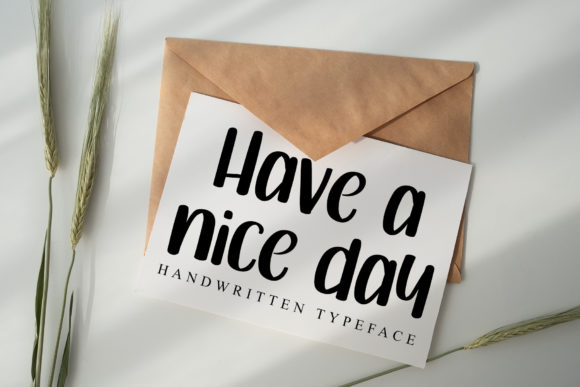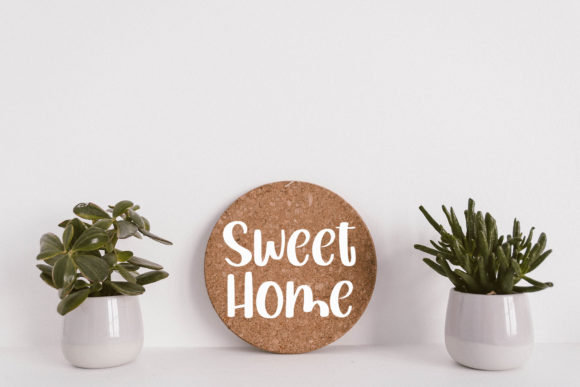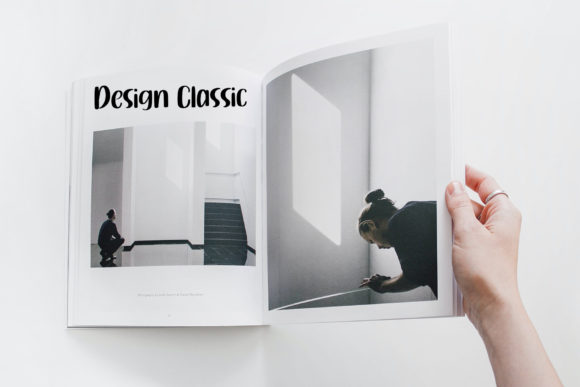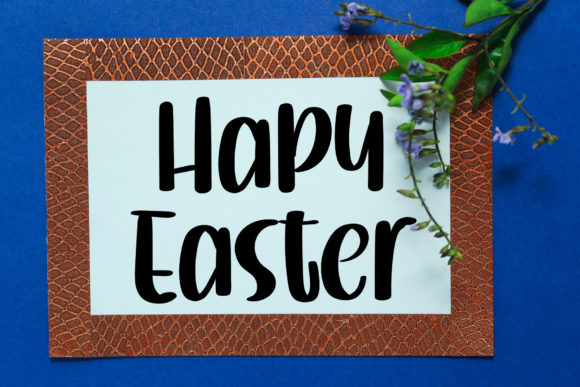
Bokeh Font
About Bokeh Font
Bokeh is a beautiful handwritten font. It is perfect for use on wedding invitations, greeting cards, billboards, logos, business cards, and any other design that requires a handwritten touch.